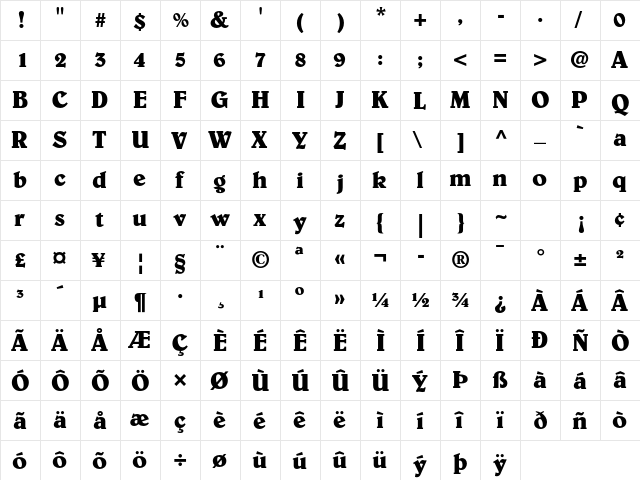
Belwe Std Bold Font Preview
Belwe Std Bold
Belwe Std Bold Font Details
| Designer | Georg Belwe |
Design Context for Belwe Std Typeface
Belwe Std takes a measured approach to typography — its balanced proportions and neutral character make it a reliable workhorse for both digital and print work. Its bold stroke weight gives it real presence on the page.